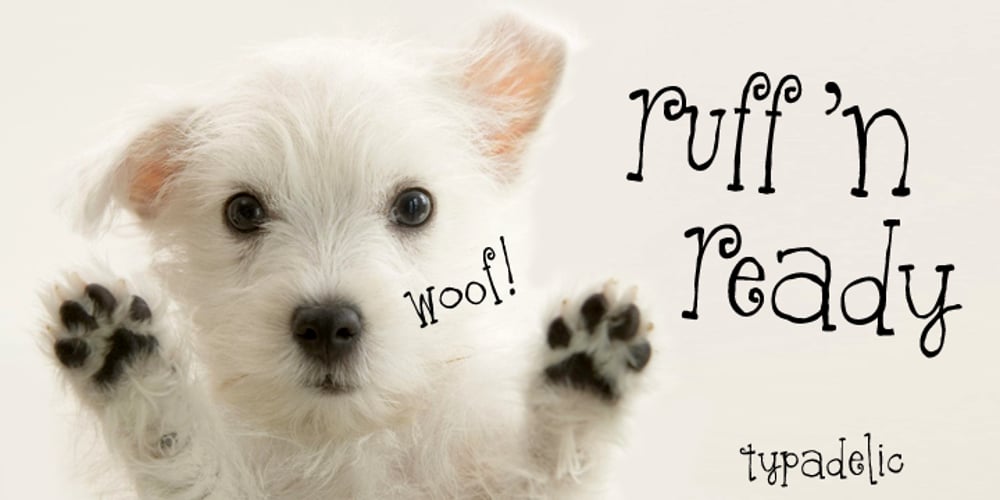
Ruff N Ready
Ruff N Ready font
Ruff N Ready Font Family was designed by Ronna Penner and published by Typadelic. Ruff N Ready contains 1 styles and family package options. Ruff N Ready is a little bit rough around the edges and is ready for use on any project! This font has an innocent charm about it but is a bit of a non-conformist. Is it a serif font? Sans serif? A script font? It’s all of those and more! It’s legible enough to be used for body copy but holds its own in a headline or title. You’ll find a few unusual ligatures in the font and some fun alternates. I hope you enjoy using Ruff N Ready as much as I enjoyed designing it!